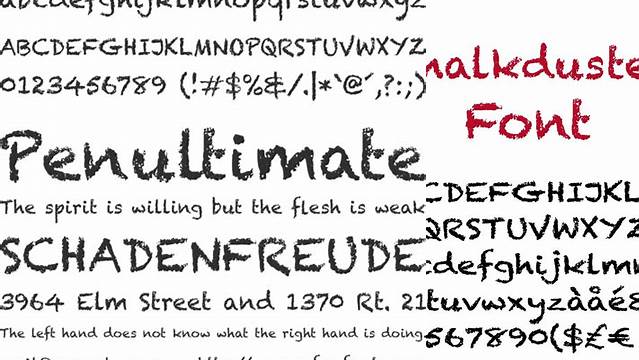
Hey there, creative folks! Are you looking to add a touch of playful charm and a handwritten feel to your designs? Then you've probably stumbled upon the Chalkduster font, a popular choice for various projects, and guess what? You can get this fantastic font for free! This article is your one-stop shop for everything you need to know about the Chalkduster font, including where to download it safely, how to use it, and some cool design ideas to spark your imagination. Let's dive in and explore this awesome font, shall we?
What is the Chalkduster Font?
First things first, what exactly is the Chalkduster font? Well, it's a casual, handwritten-style font that mimics the look of chalk writing on a chalkboard. It's got that imperfect, slightly messy vibe that makes it feel friendly, approachable, and, let's face it, super cool. The font was designed by Steve Matteson and released by Monotype. Its popularity has soared over the years because it offers a unique aesthetic. It's the perfect font for anything that needs a touch of personality and a less-than-serious feel. Think about those cute cafe menus, fun-loving children's book covers, or even websites aiming for a laid-back atmosphere. The versatility of this font is really something. The best part? It's incredibly easy to read, despite its handwritten appearance. It's designed to be legible even at smaller sizes, making it a great choice for headings, subheadings, and even body text in certain applications. The font is available in various weights and styles, giving you plenty of options to play with and create a unique visual experience. Whether you're a seasoned designer or a newbie, Chalkduster is a must-have in your font library. It's like having a secret weapon to instantly add personality and character to your work. It has this inherent ability to evoke feelings of nostalgia, warmth, and creativity. It's no wonder why so many designers and creatives love using this font in their projects. It's a surefire way to grab attention and leave a lasting impression.
With its slightly irregular strokes and charming imperfections, Chalkduster adds a touch of authenticity that's hard to resist. It's like having a virtual chalkboard at your fingertips, ready to bring your ideas to life. So, whether you're working on a personal project or a professional endeavor, the Chalkduster font is an excellent choice. It's more than just a font; it's a statement. It's a way to convey a sense of fun, creativity, and individuality. This font brings a sense of playfulness and informality that's often sought after in the design world. It stands out from the crowd of generic fonts. It's that special ingredient that can elevate your designs from good to amazing. Its unique character and readability make it a winner for various projects. Plus, it's free! So, what are you waiting for? Let's get this font into your design arsenal.
Conclusion: Chalkduster Font - Your Creative Partner